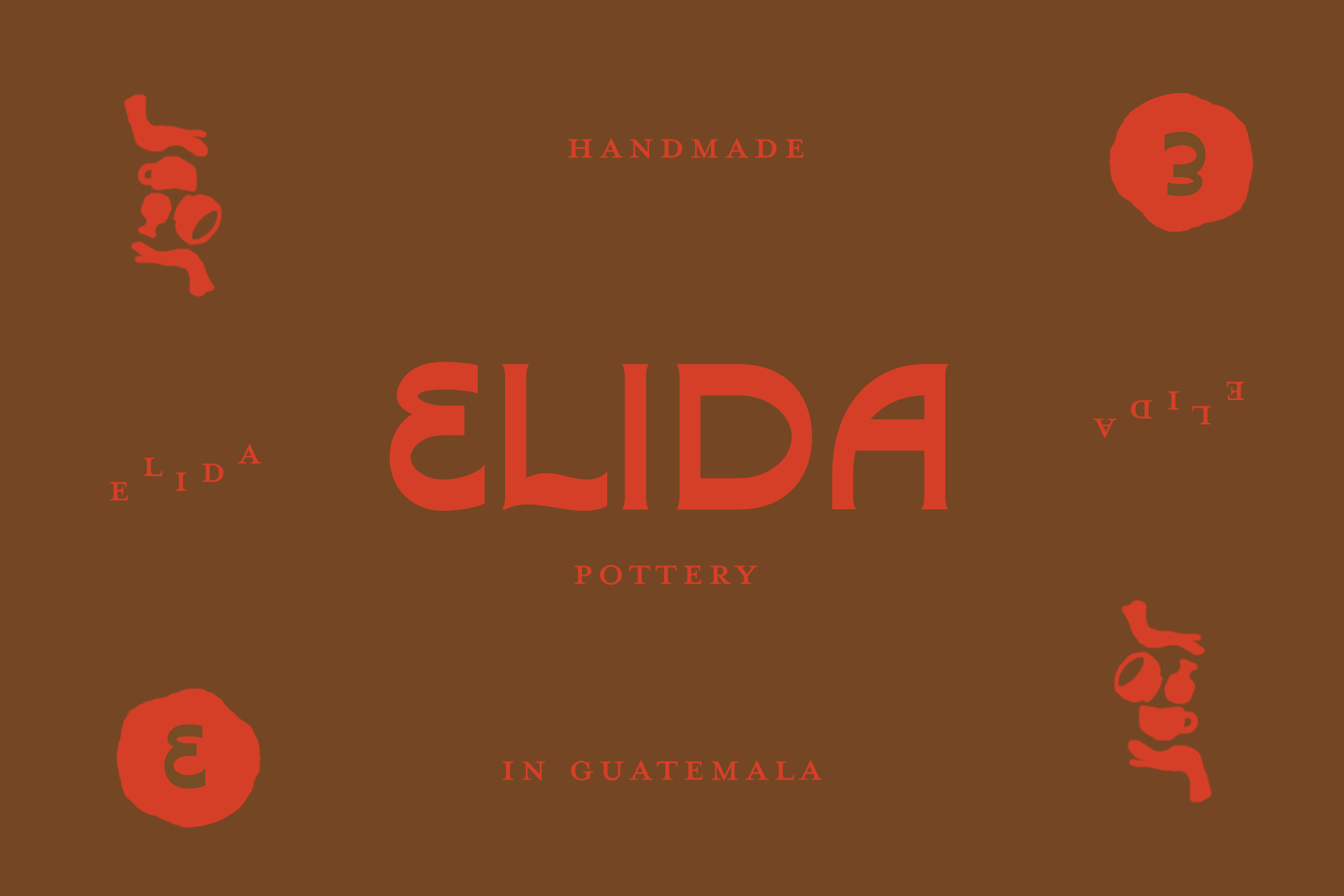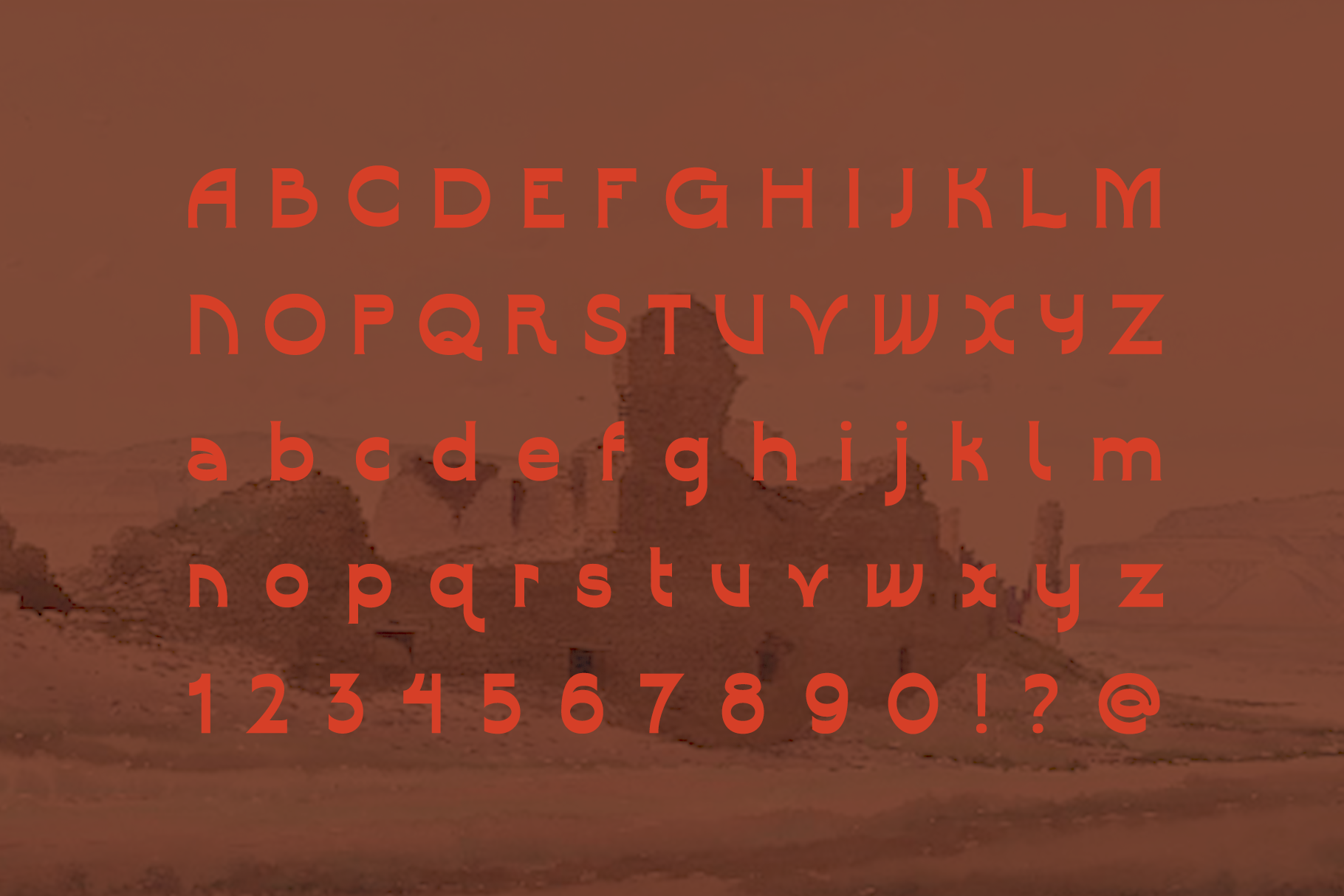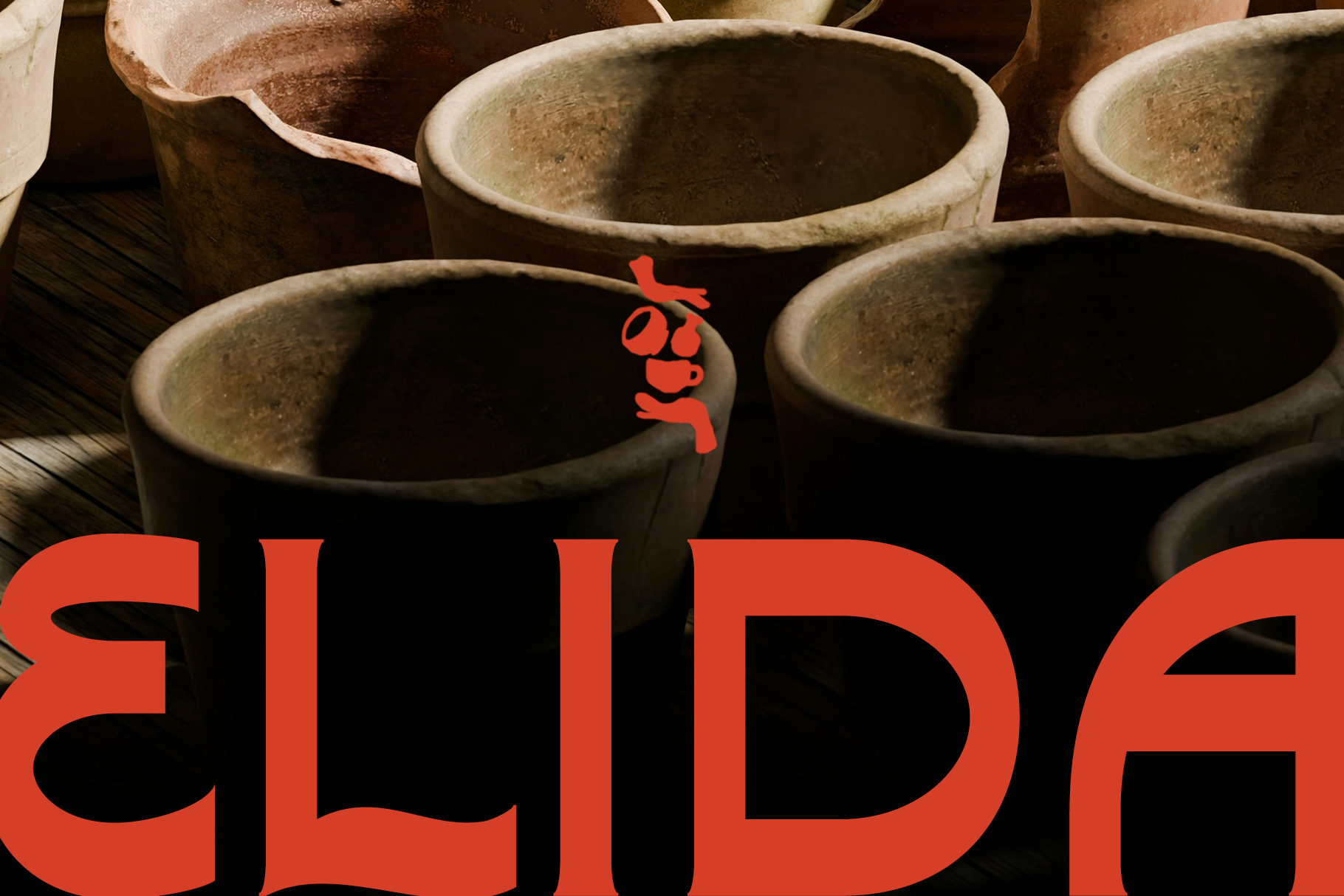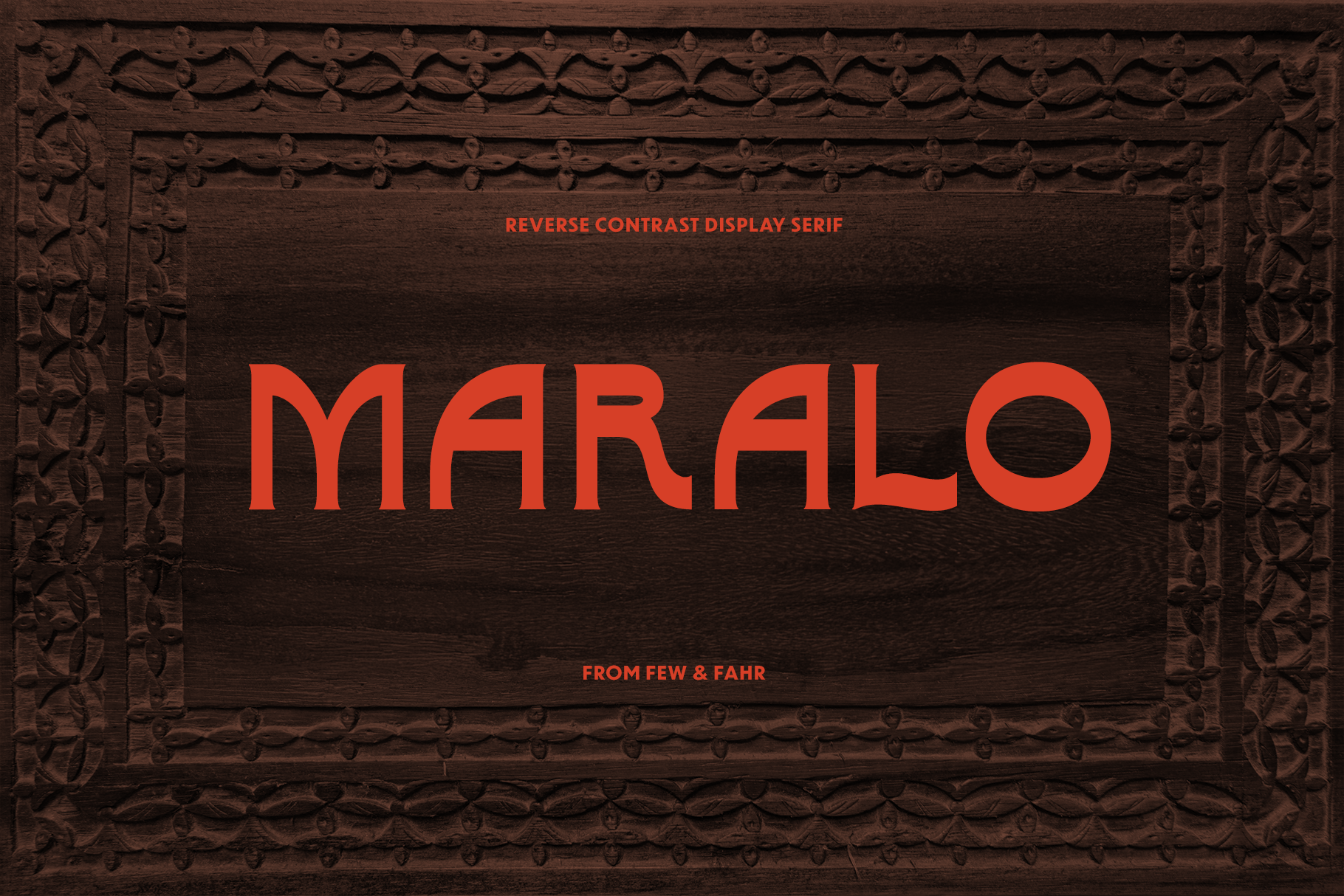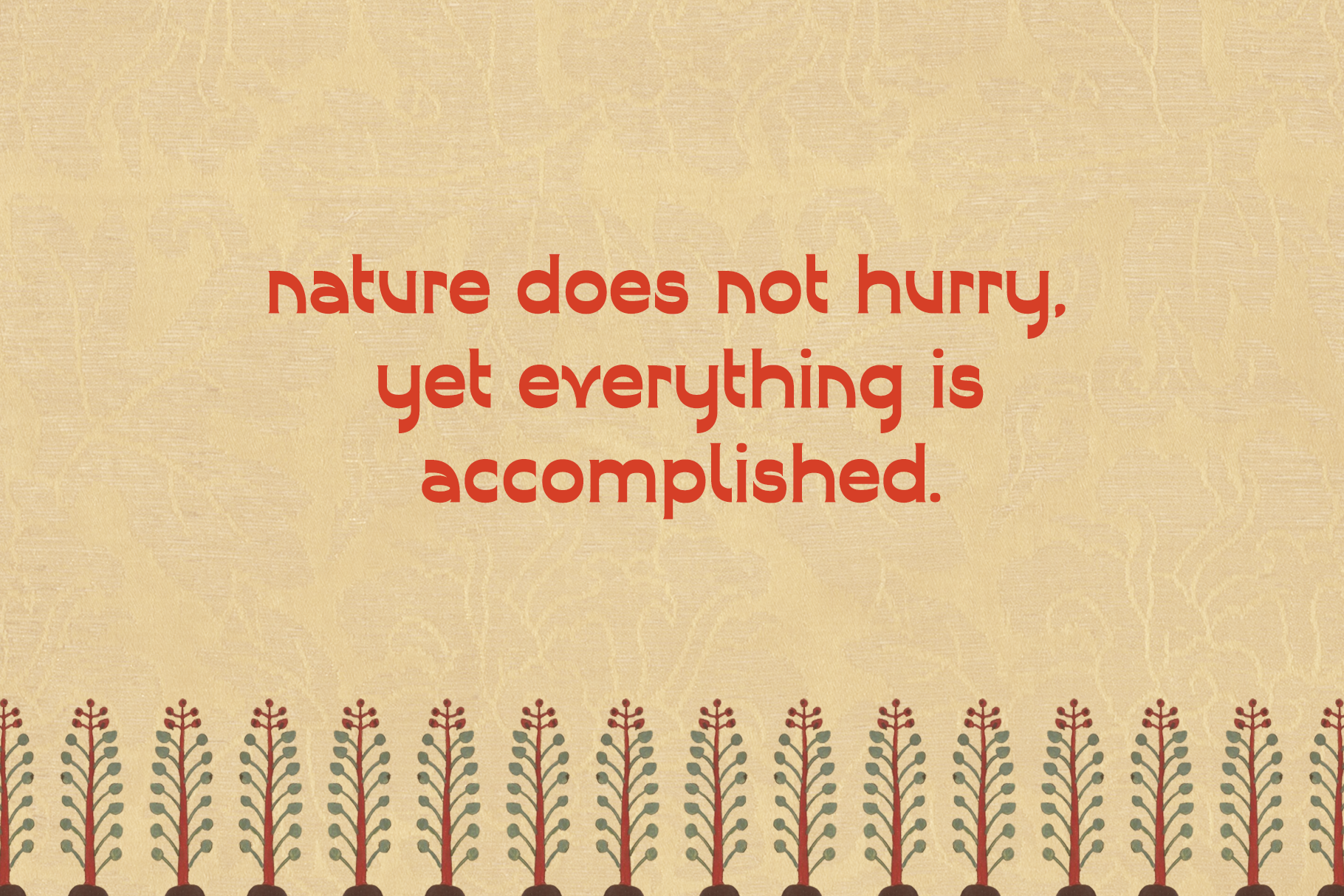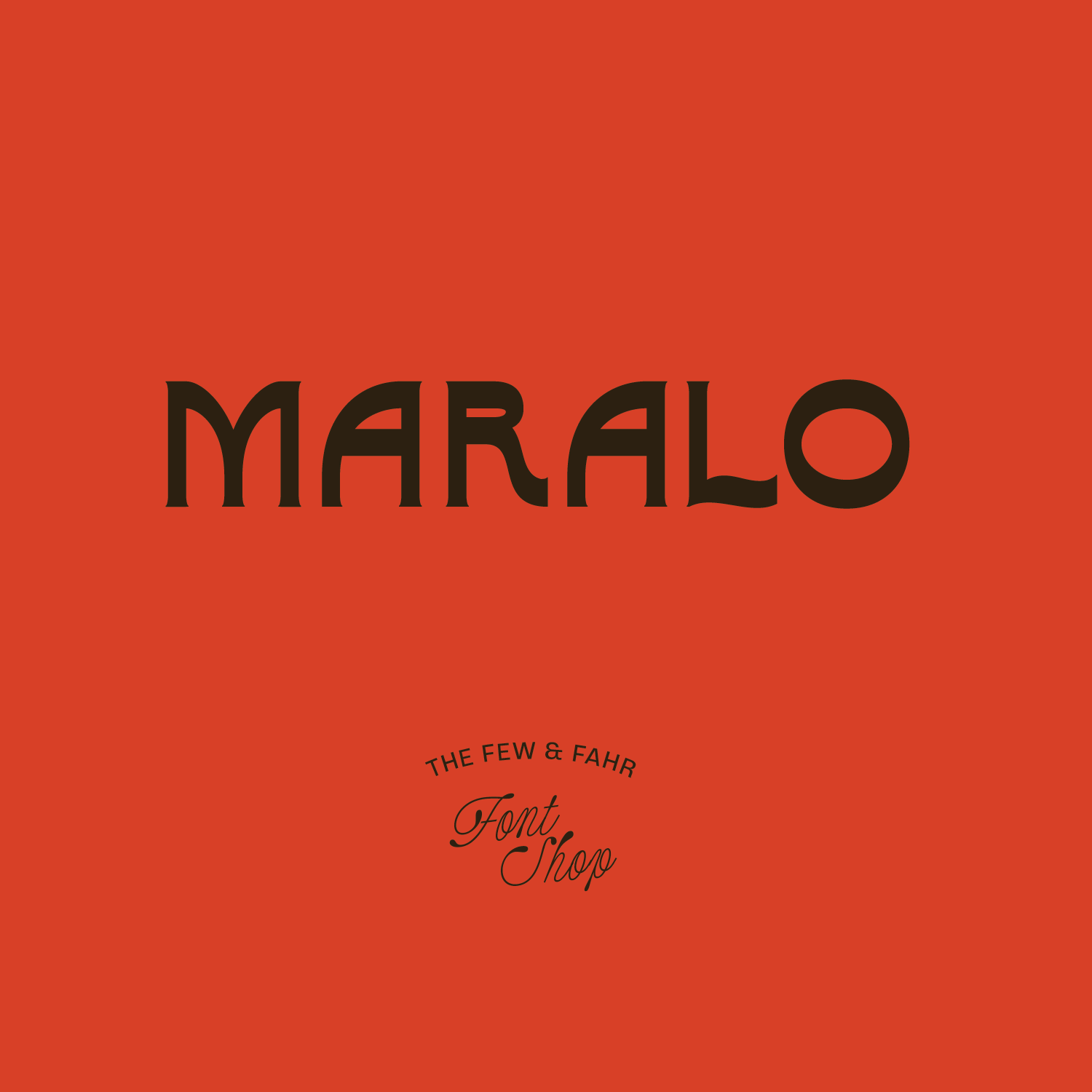
MARALO Typeface
About the Font
Maralo is a reverse contrast serif display. The serifs add a subtle organic feel, differentiating Maralo from other reverse contrast fonts. Inspiration was drawn from groovy 70s vibes and Spanish typography.
Uppercase & Lowercase letterforms
Numbers & punctuation
Alternates